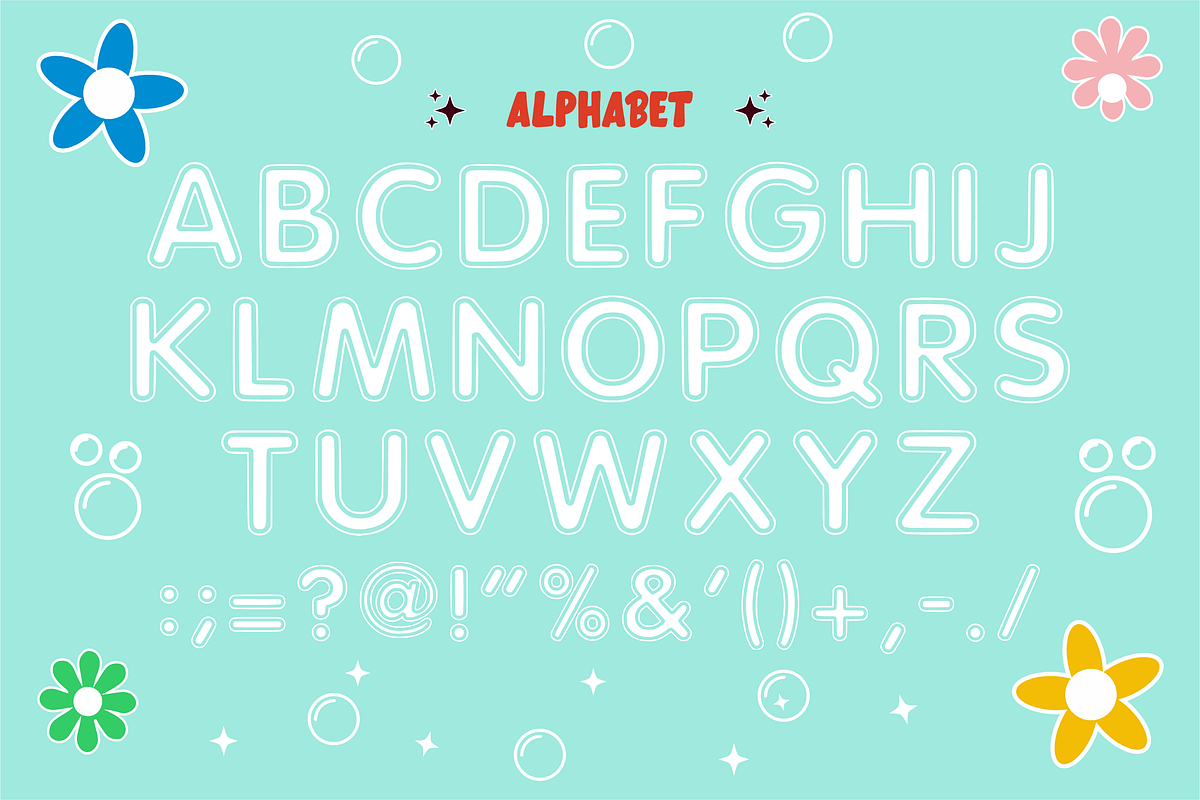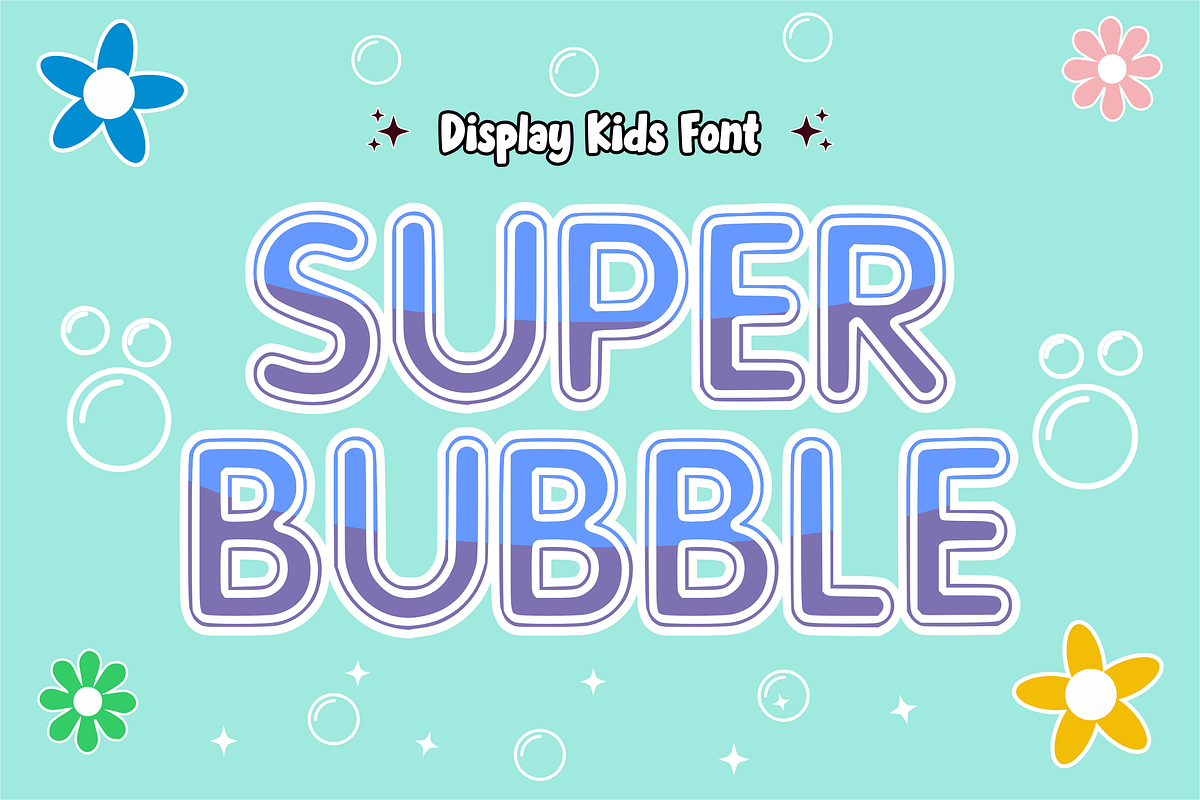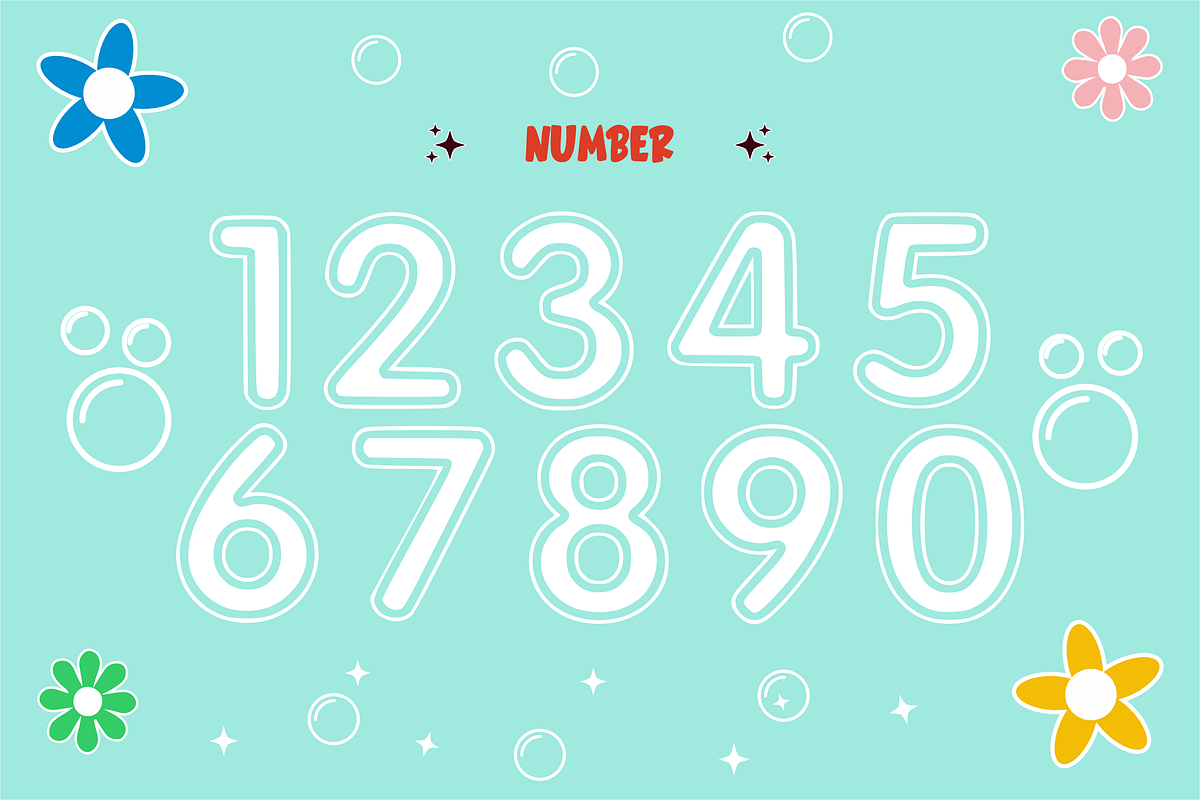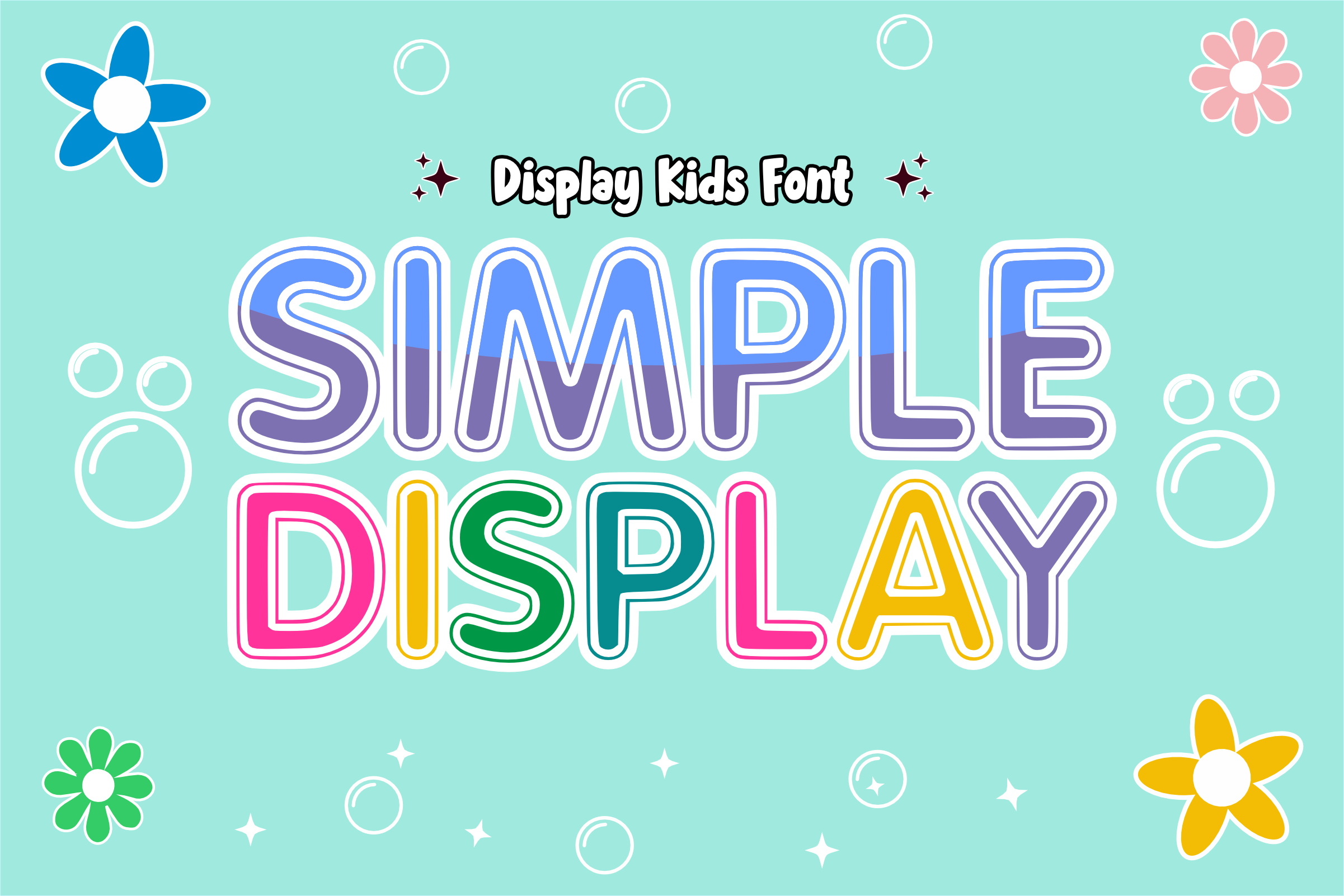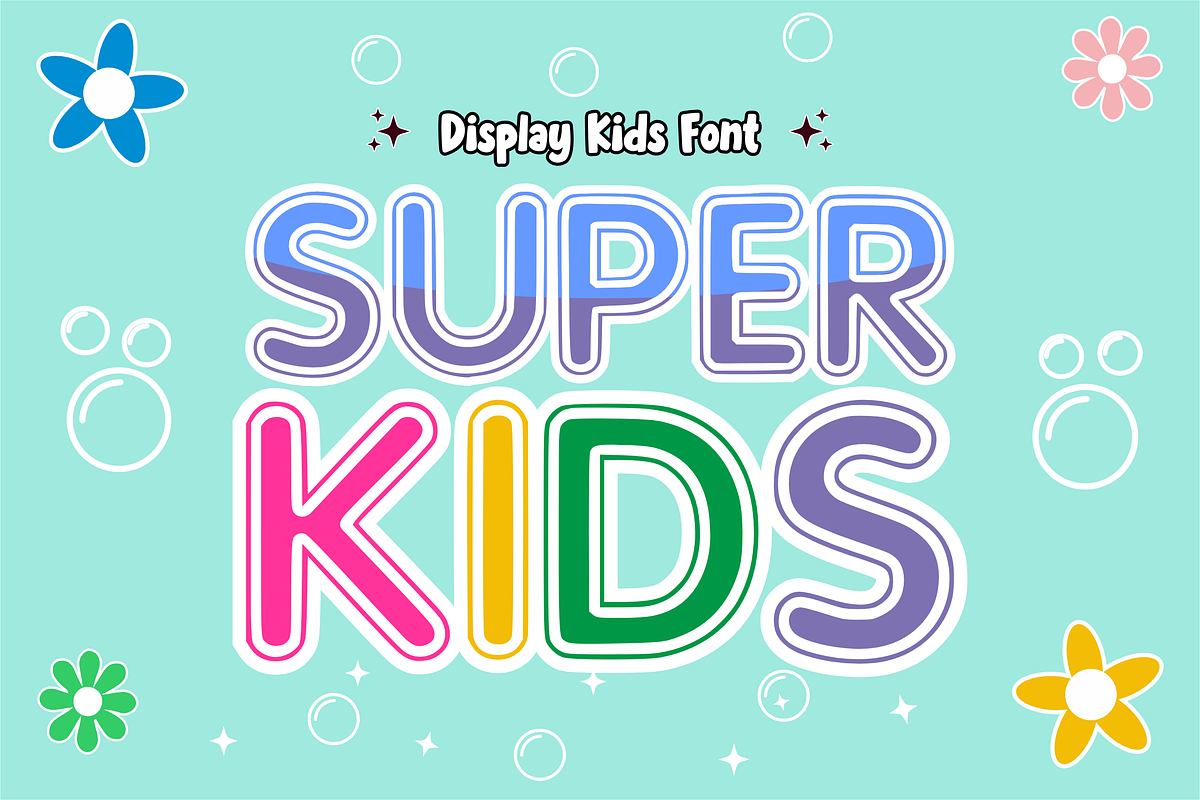
Simple Display - Display Font
🎨 Simple Display - Clean & Playful Modern Font ✨ Keep it bold and beautiful with Simple Display! This font is the perfect blend of minimalist design and playful energy. Featuring chunky, rounded characters with a clean "sticker-style" outline, it offers a versatile look that fits almost any creative project.
Designed for clarity and fun, Simple Display is your "go-to" font when you need high-impact text that remains friendly, modern, and incredibly easy to read!
🌟 Key Features: 📐 Bold Uppercase: Balanced, thick letters for clean and professional headlines.
🔢 Numbers 0-9: Simple, matching numerals for all your data and dates.
🎈 Essential Symbols: Core punctuation to complete your minimalist designs.